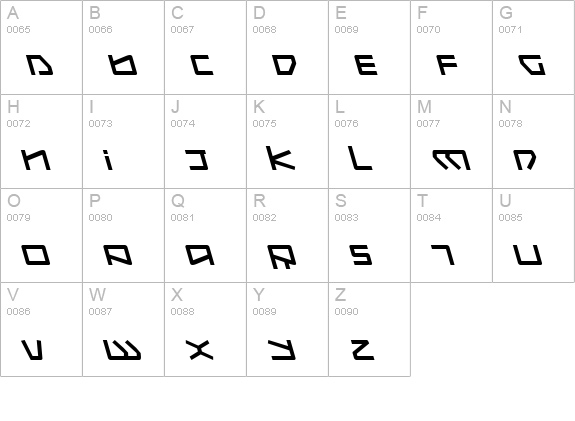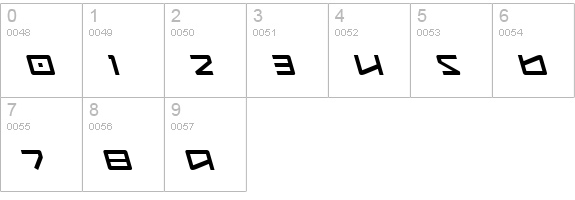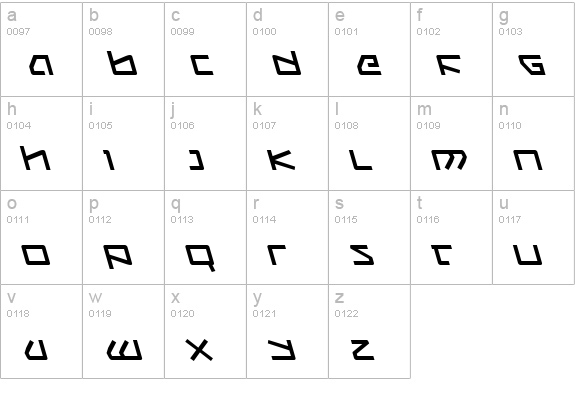
Kobold Leftalic font is a whimsical and playful typeface that exudes charm and character. Its slanted, italicized design adds a dynamic and energetic touch to any creative project. With its unique and quirky style, Kobold Leftalic is sure to make your designs stand out. Best of all, Kobold Leftalic font is available for free download at FontsMarket.com. Whether you're working on a personal project or a professional design, this font is the perfect choice for adding a touch of fun and personality. Download Kobold Leftalic today and let your creativity shine!